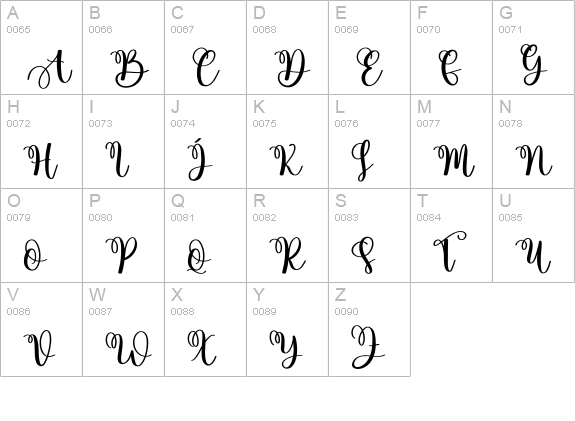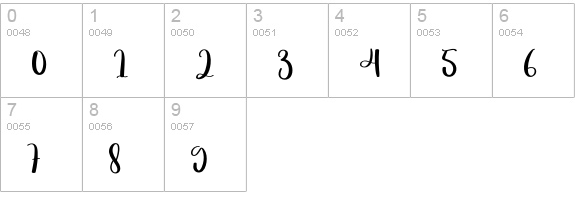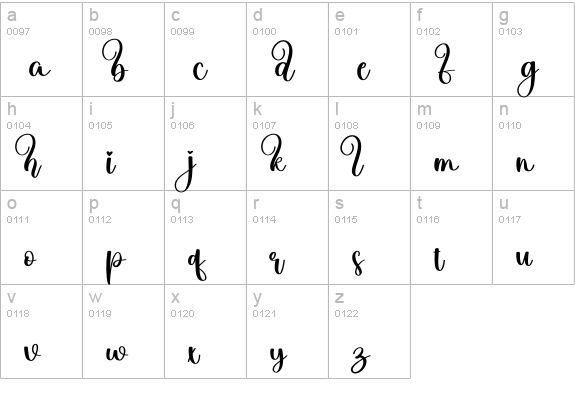
Bodylotion Font Details
Bodylotion is a free for personal use font in the Script > Handwritten category, designed by scratchones. It has been downloaded 42 times and is available for Windows, Mac and Linux.
Bodylotion font is a modern and stylish typeface that exudes elegance and sophistication. With its sleek and refined curves, this font is perfect for creating eye-catching designs that make a bold statement. The Bodylotion font is versatile and suitable for a wide range of design projects, from branding to advertising to packaging.